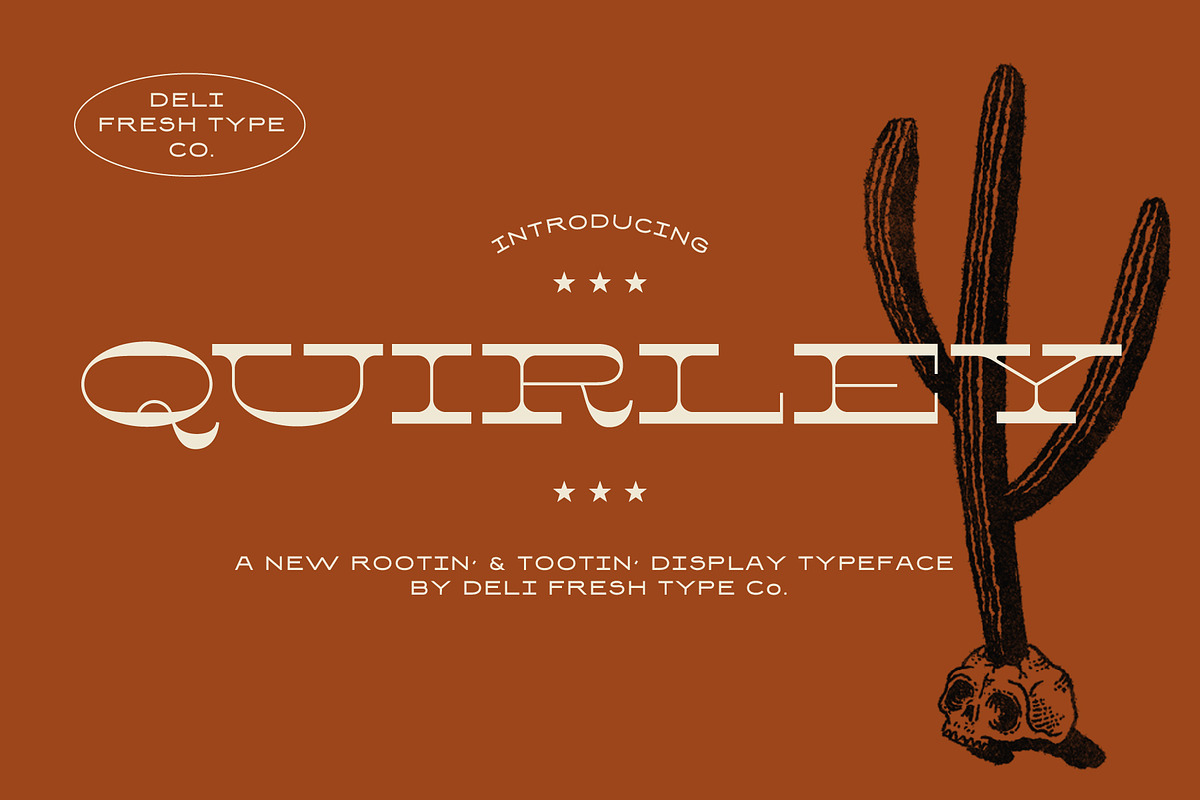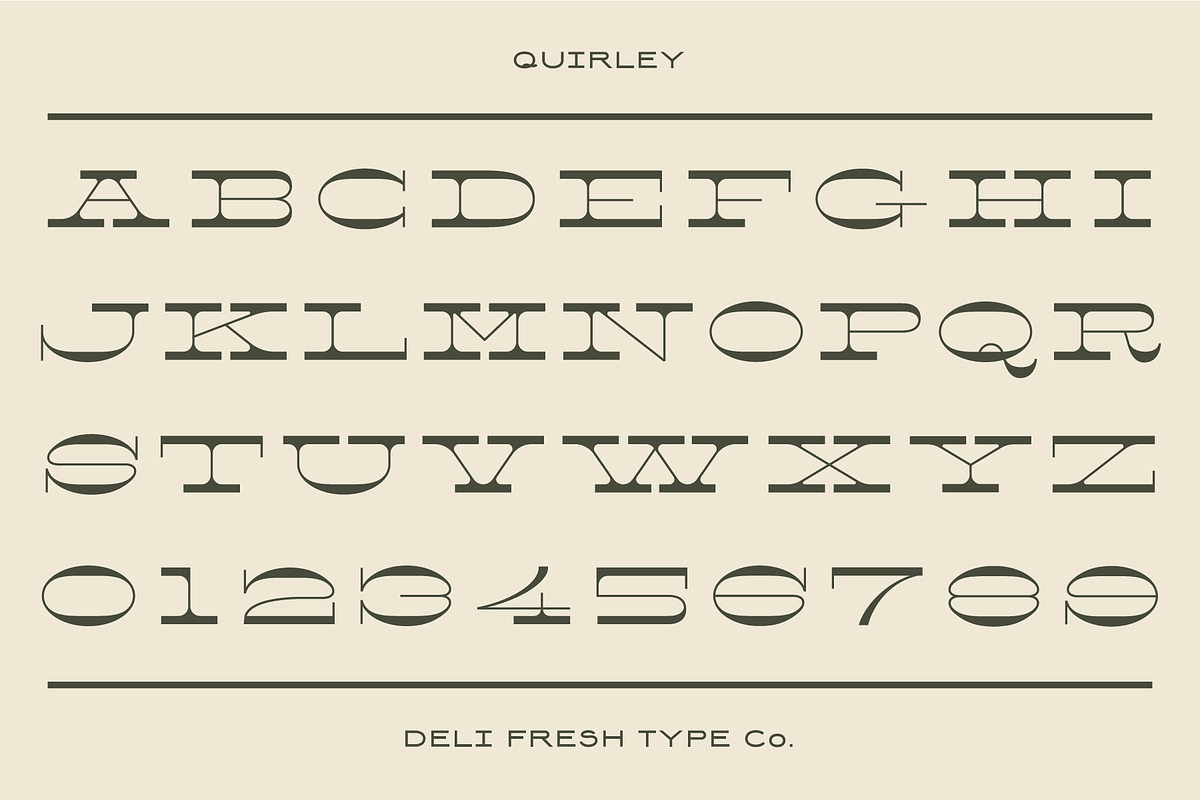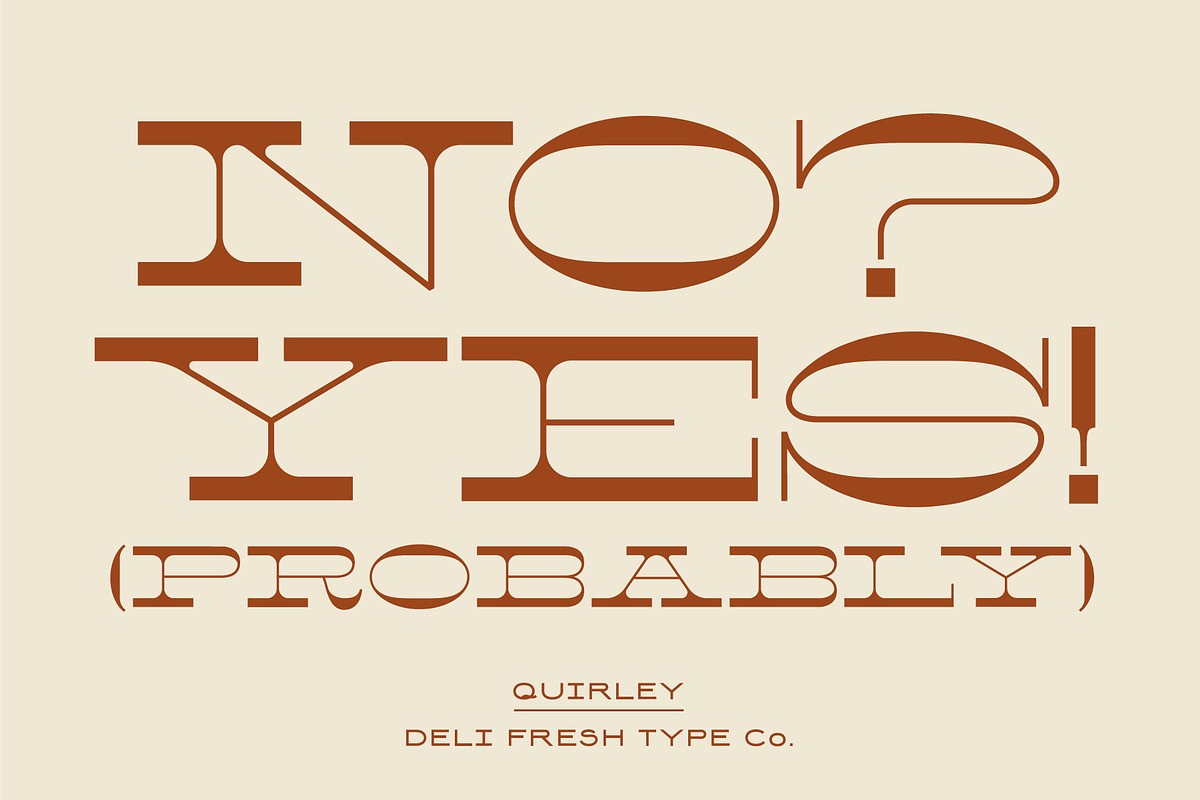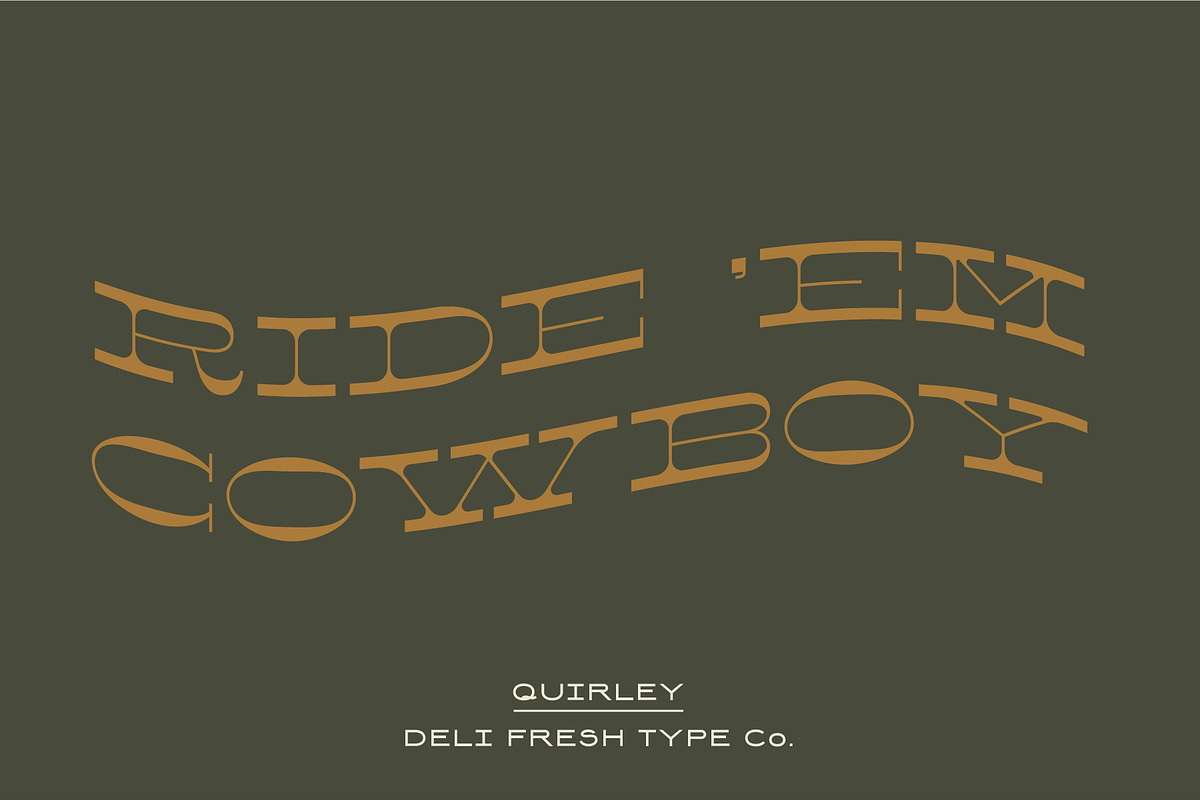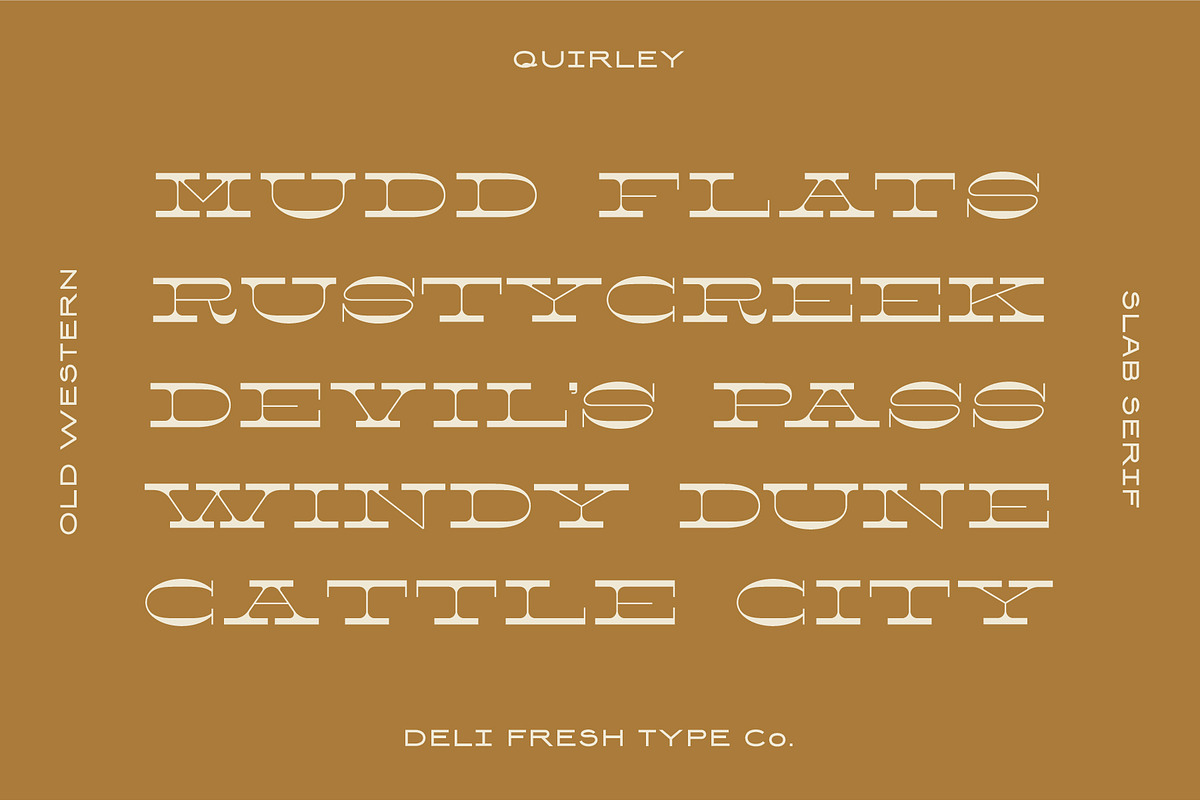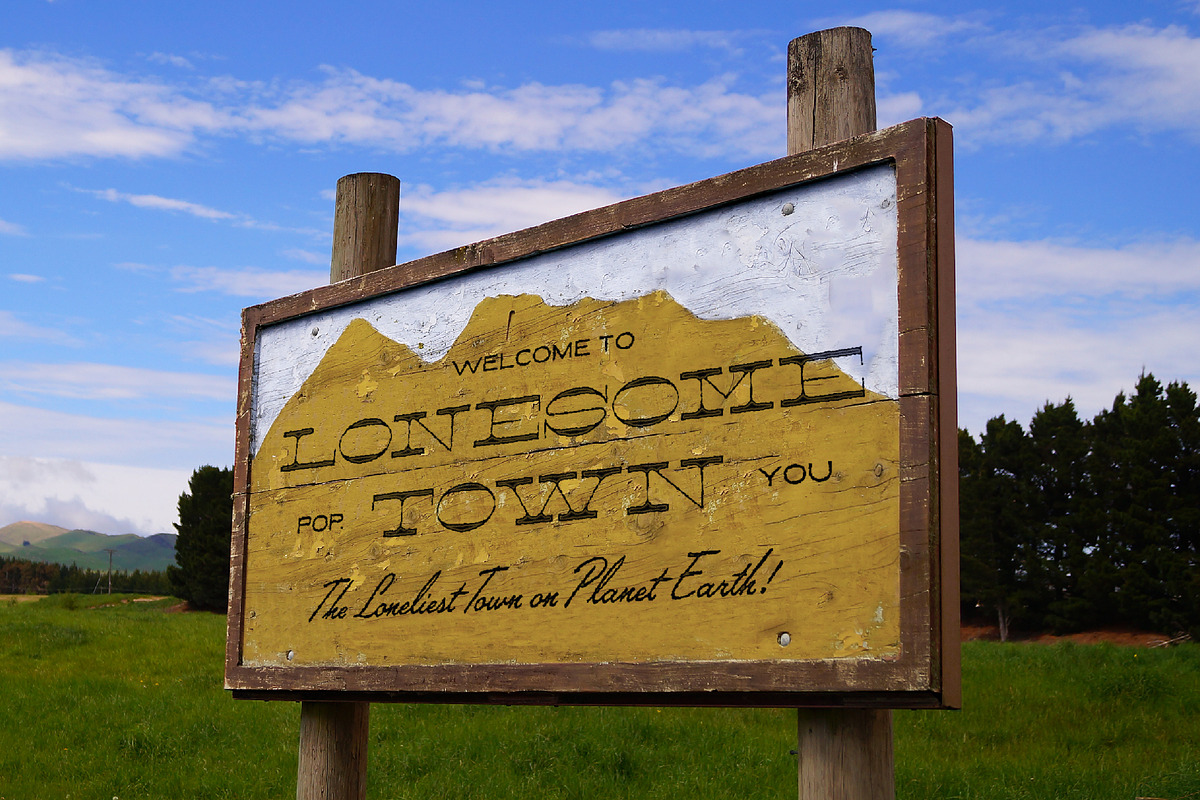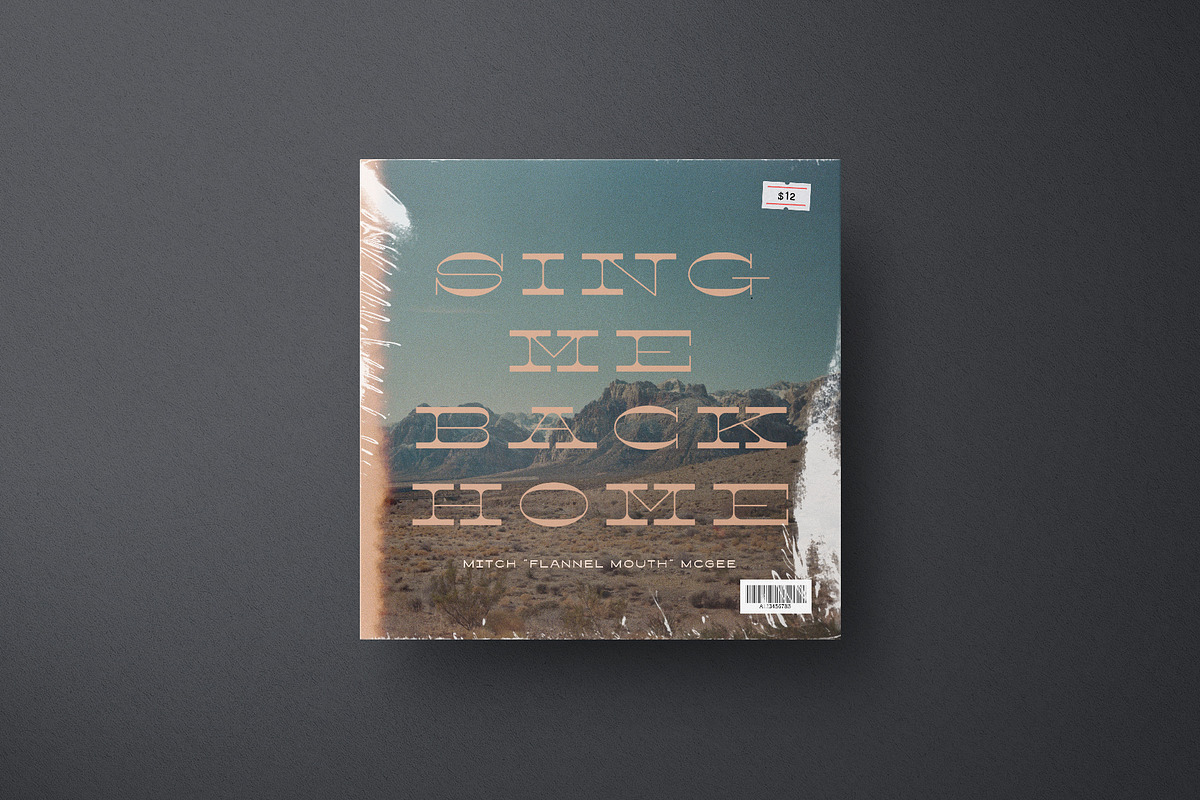
Quirley: A Western Slab Serif Font
A reverse contrast sans serif with western flair.
This rootin’ typeface comes with capitals, numerals, and a smattering of special characters and punctuation marks.